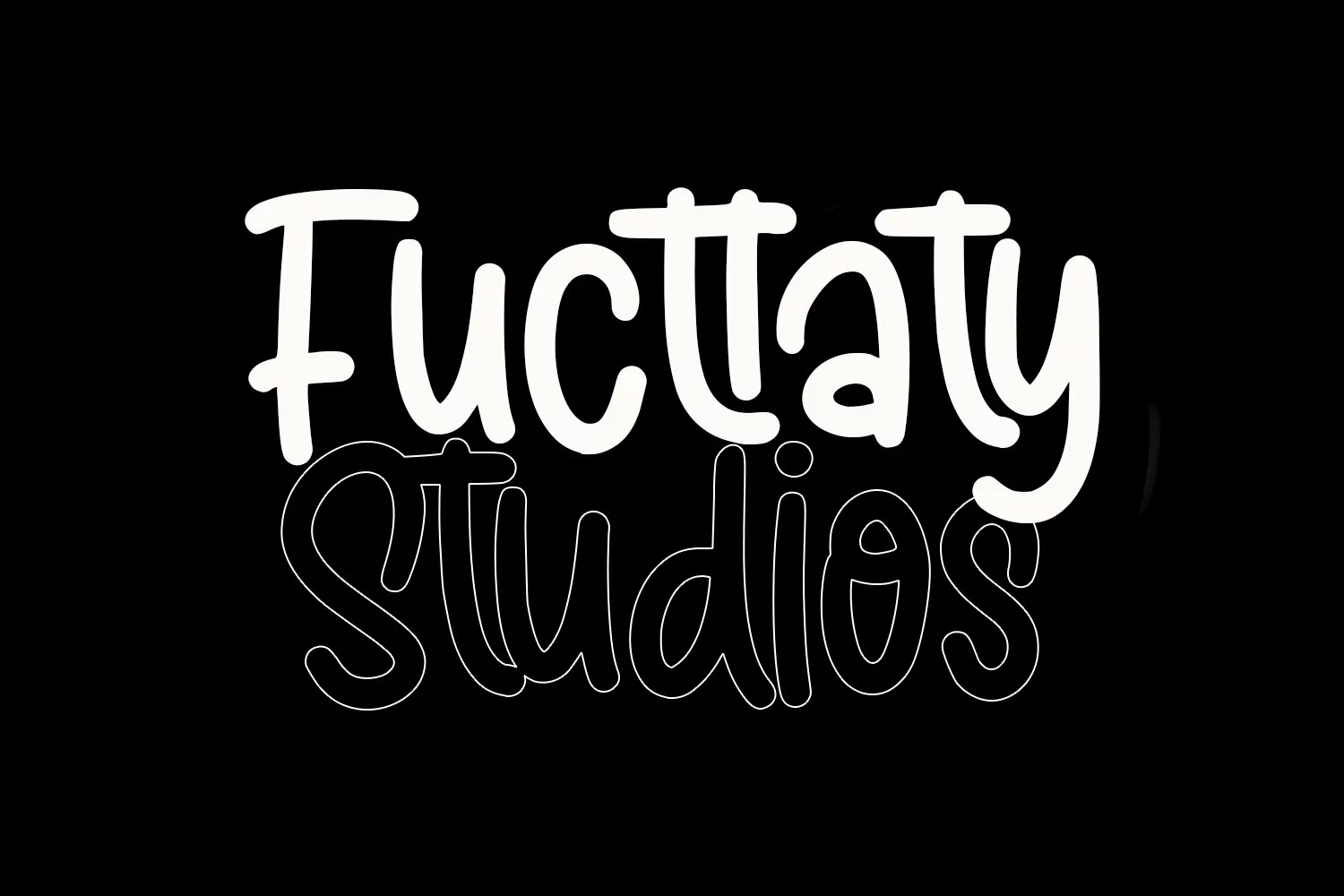
Sunny Goldie is a natural handwritten font. With regular mono-line stroke, fun character with a bit of ligatures. To give you an extra creative work. Sunny Goldie font support multilingual more than 100+ language. This font is good for logo design, Social media, Movie Titles, Books Titles, a short text even a long text letter and good for your secondary text font with sans or serif. Make a stunning work with Sunny Goldie font.
Sunny Goldie